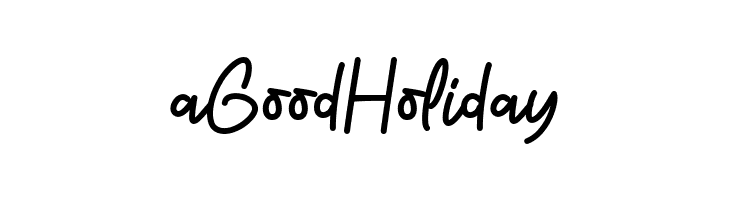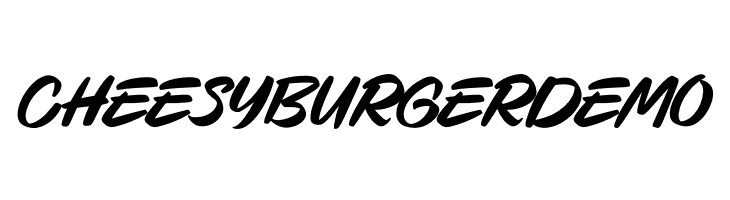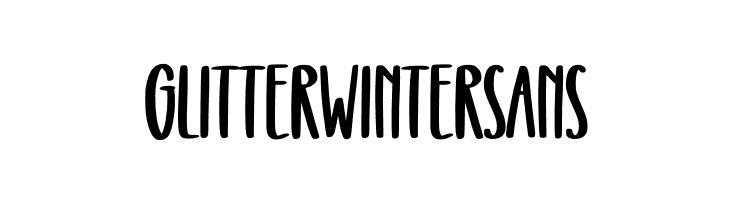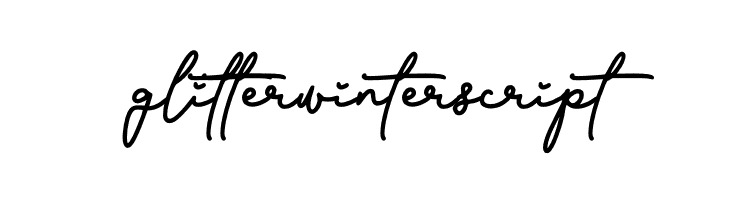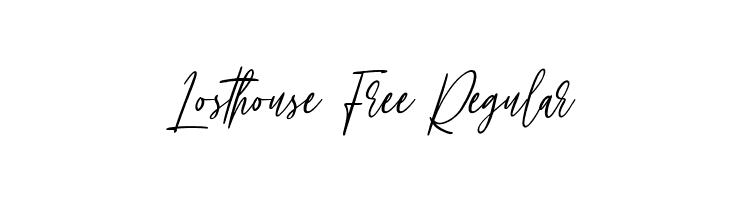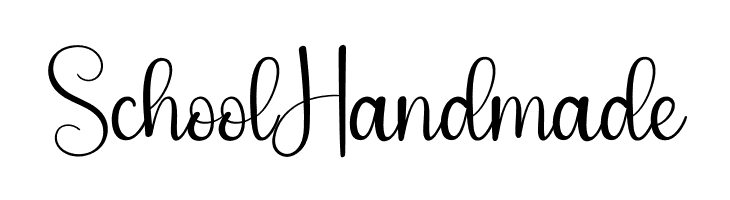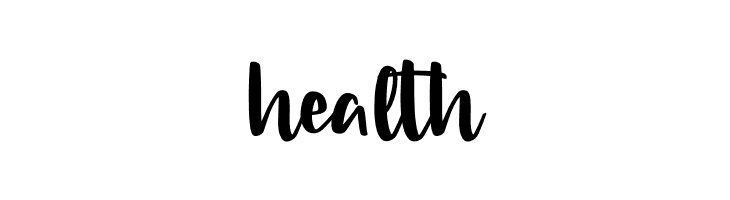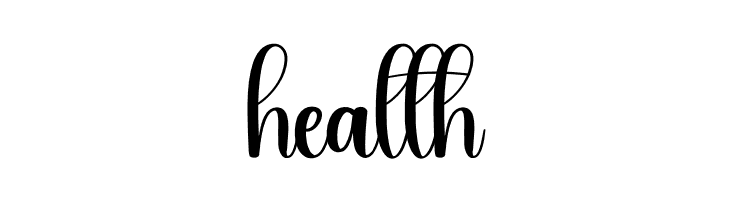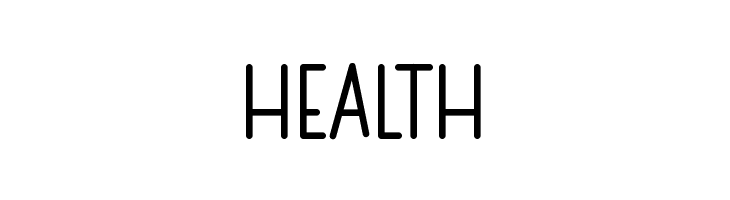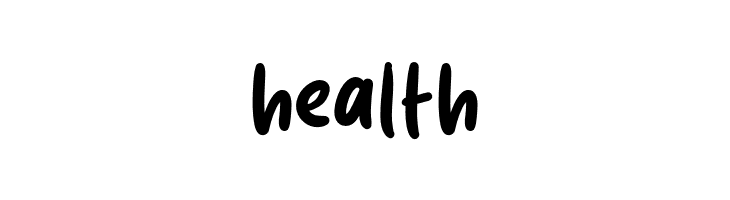
Casual handwritten script with smooth, rounded strokes.
Casual handwritten font with bold, rounded strokes.
Tall, elegant script with dramatic contrast and flourishes.
Bold, playful handwritten script with smooth, connected strokes.
A friendly handwritten font with a casual, informal appearance.
Handwritten, tall sans-serif with playful, rounded forms.
Handwritten script with smooth, connected strokes and a casual, elegant vibe.
Casual handwritten script with bold, rounded strokes.
Playful, rounded sans-serif with a handwritten feel.
Elegant, handwritten script with tall, narrow forms and fluid strokes.
Tall, thin handwritten script with playful, casual style.
A bold, hand-drawn sans-serif font with playful, rounded forms.
Elegant, tall handwritten script with a casual, modern feel.
A sophisticated, cursive script with graceful, elongated letterforms.
Playful handwritten script with tall loops and a casual, whimsical style.
Tall, quirky sans-serif with playful, spooky character.